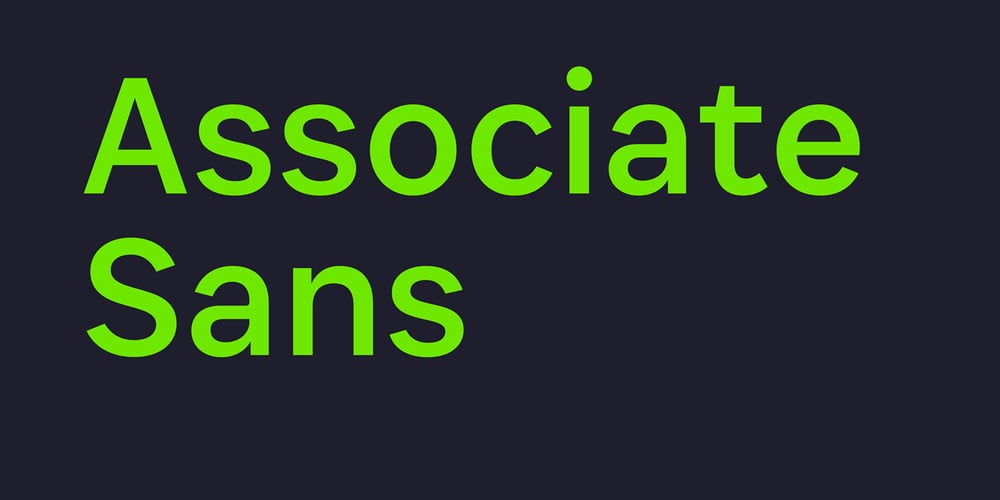
Associate Sans Font Family was designed by Alisa Nowak, Jérémie Hornus and published by Indian Type Foundry. Associate Sans contains 10 styles and family package options. Associate Sans is a large family of ten sans serif fonts. The typeface is perfect for use in Editorial Design. Its letters have a strong ‘American gothic’ look. This genre has been used since the early 20th-century for the design of publications, corporate identities, and even the small print in newspapers and magazines. While Associate Sans’s letterforms appear to be monolinear, this is not entirely so. Several optimal tricks have been drawn into the typeface’s letterforms to optimise them, and give them this look and feel. Like other ‘American gothics,’ Associate Sans features double-storey lowercase ‘a’ and ‘g’ letters. Each of the family’s five weights – from ExtraLight through Bold – has a companion italic font. These italics should really be called ‘obliques,’ since they use the same design language as the upright fonts; they differentiate texts set in them by their slant. Associate Sans is part of a larger ‘Associate’ type system. On FontStore, you’ll find several matching font families for this design, including Associate Slab, Associate Sans Stencil, Associate Slab Stencil, and even Associate Sans Mono. Associate Sans is designed by Jérémie Hornus and Alisa Nowak.